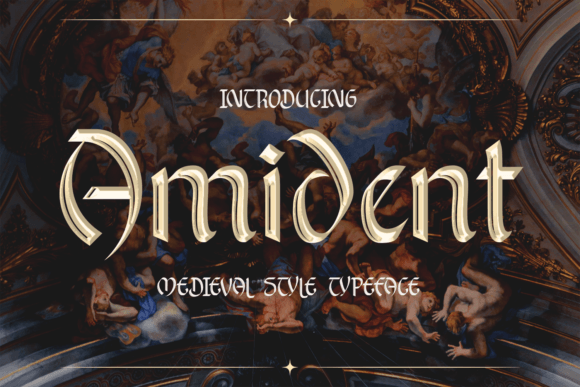
Introducing Amident Font, a captivating and enchanting medieval-style display font designed by Creative Fabrica Fonts. Immerse yourself in the beauty of the Middle Ages with this unique typeface that will add a touch of elegance to your typography designs.
Amident Font is the perfect choice for those looking to evoke the enchanting essence of the medieval era. Its intricate and beautifully crafted characters will transport your audience to a time of knights, castles, and chivalry. Let your creativity reign as you create stunning product labels, mesmerizing posters, captivating book covers, and captivating movie titles.
With Amident Font, you have the power to captivate and engage your audience like never before. The font's distinct medieval aesthetic will instantly grab attention and leave a lasting impression on anyone who lays eyes on your designs. Its timeless appeal makes it a versatile choice for a wide range of projects, whether you're working on a historical reenactment, a fantasy novel, or simply want to add a touch of old-world charm to your branding.
One of the standout features of Amident Font is its PUA encoding, which allows you to effortlessly access all the glyphs and swashes. Say goodbye to limitations and embrace the endless possibilities this font offers. Whether you're a seasoned designer or just starting your creative journey, Amident Font ensures that you have all the tools you need to bring your vision to life.
Embrace the allure of the Middle Ages with Amident Font and let your imagination run wild. Its intricate details and ornate flourishes will transport you to a world of knights and maidens, where legends come to life. Elevate your designs with this captivating font and watch as your creations become a true work of art.